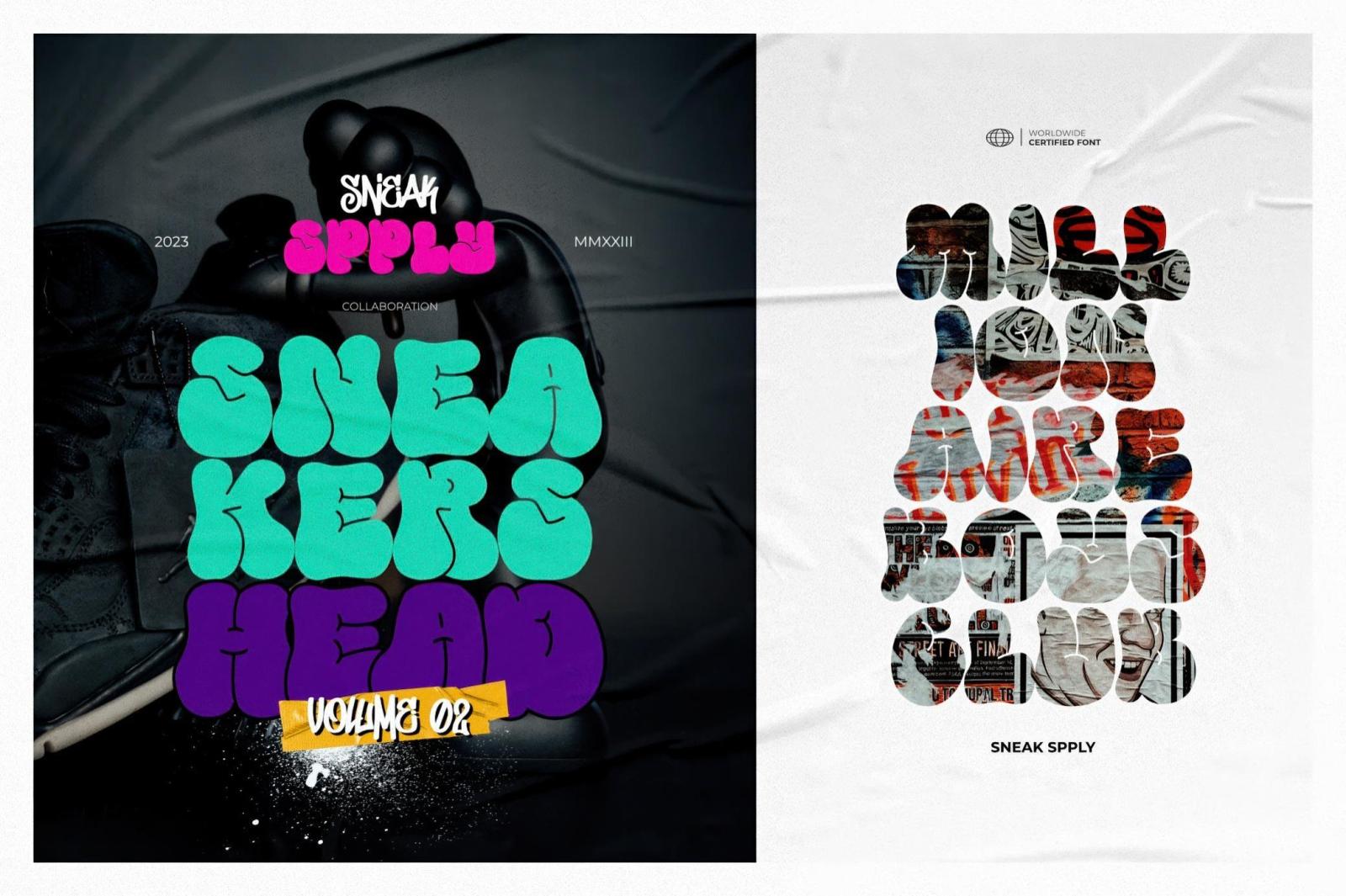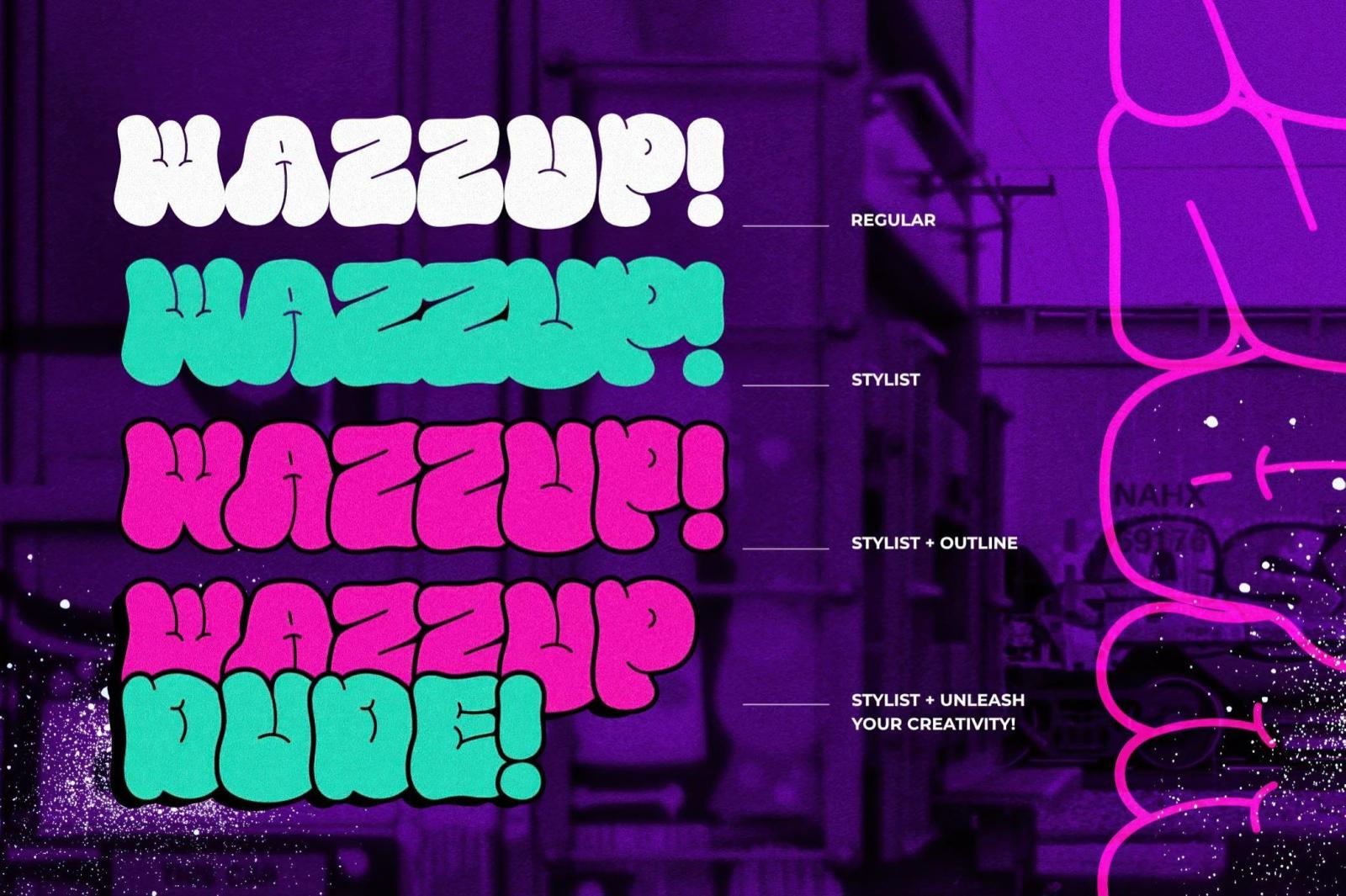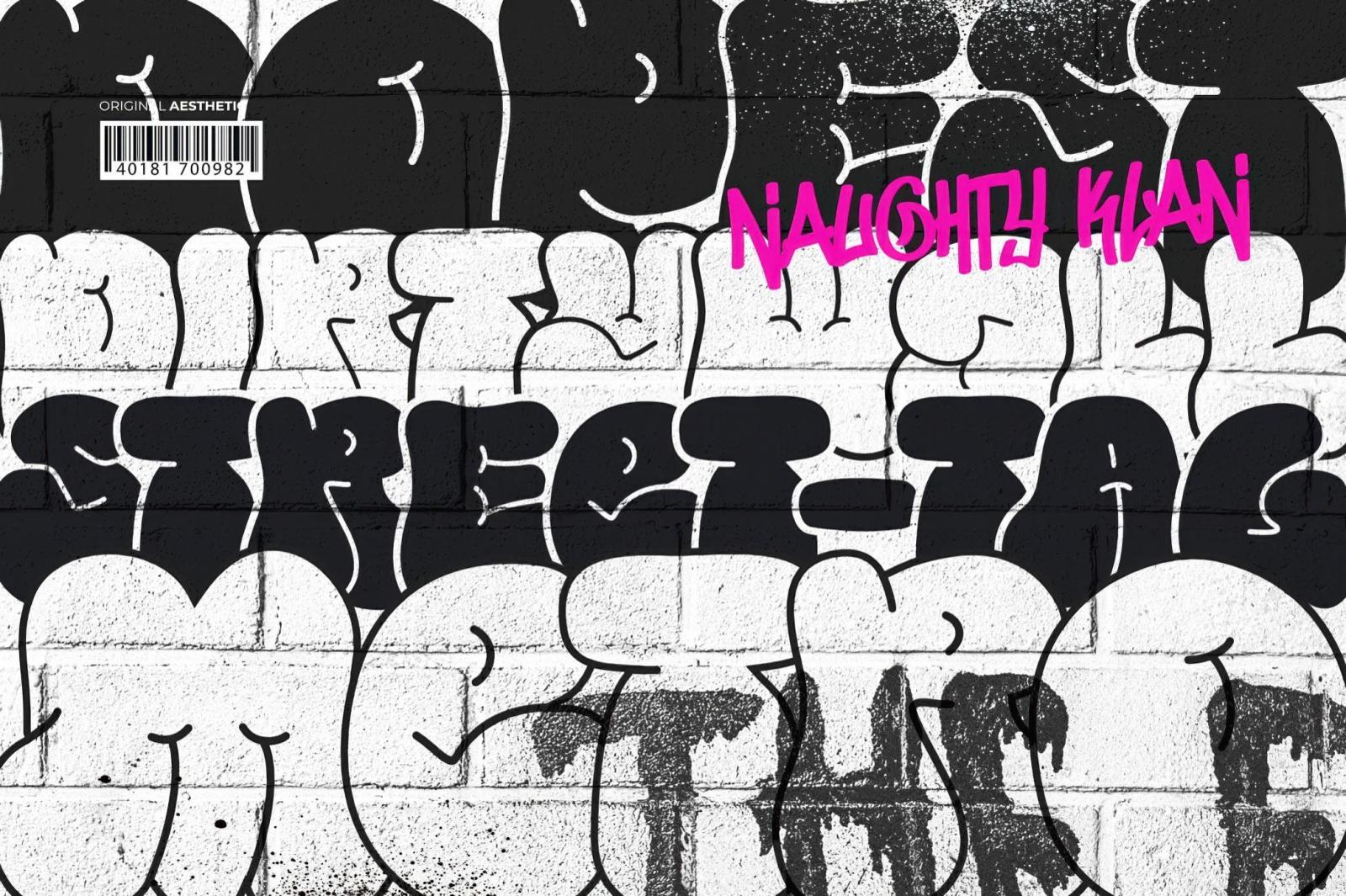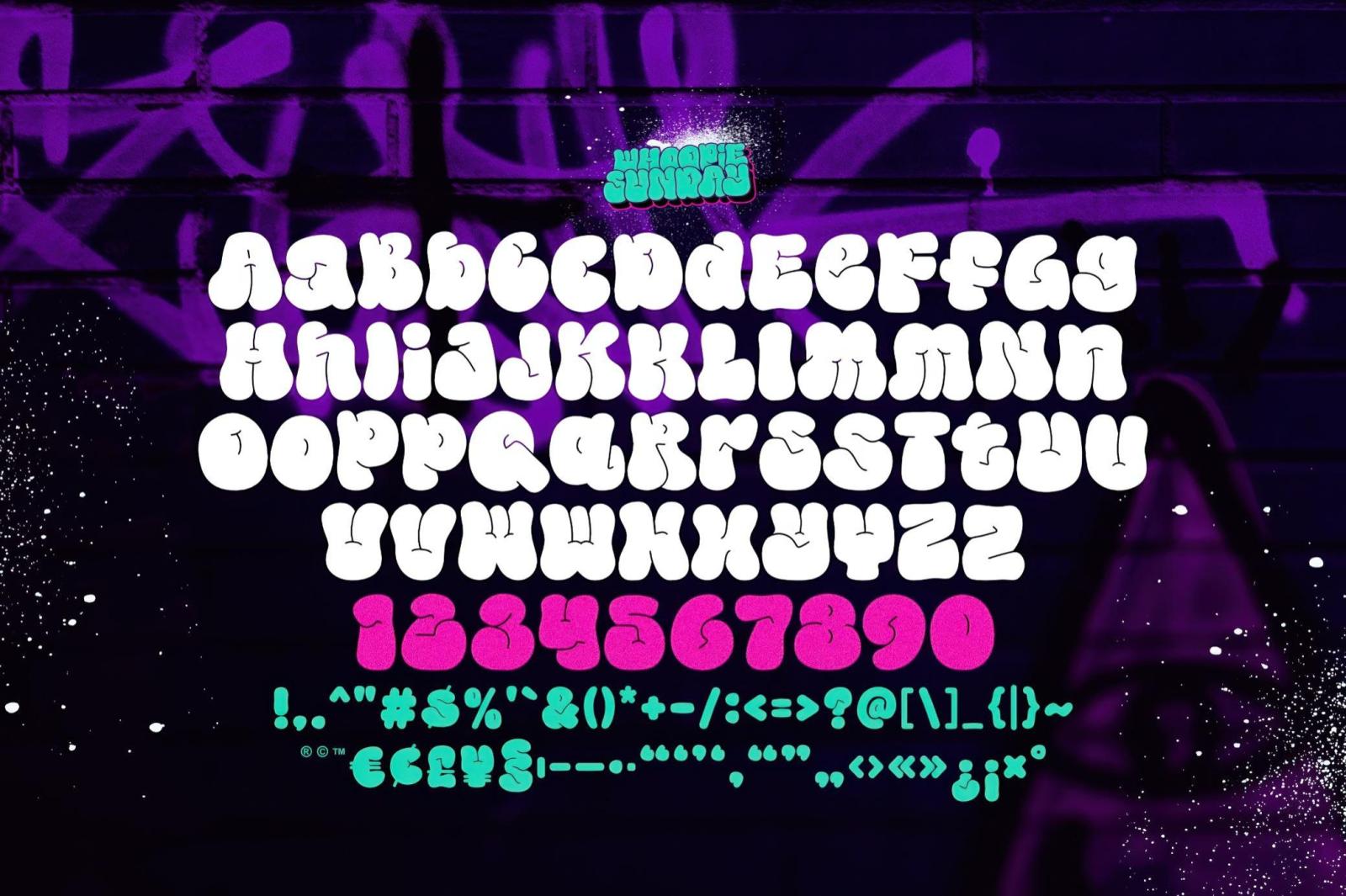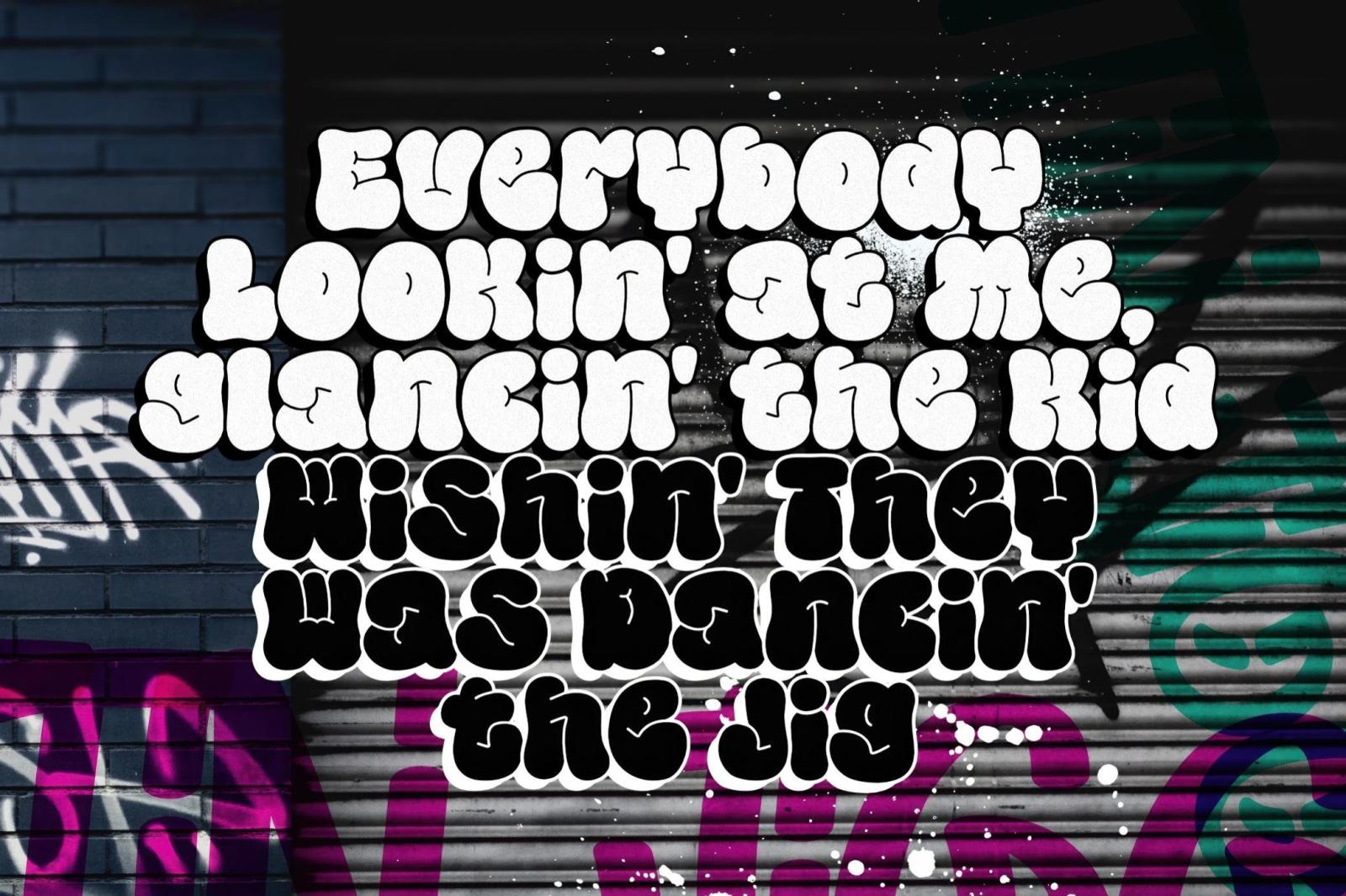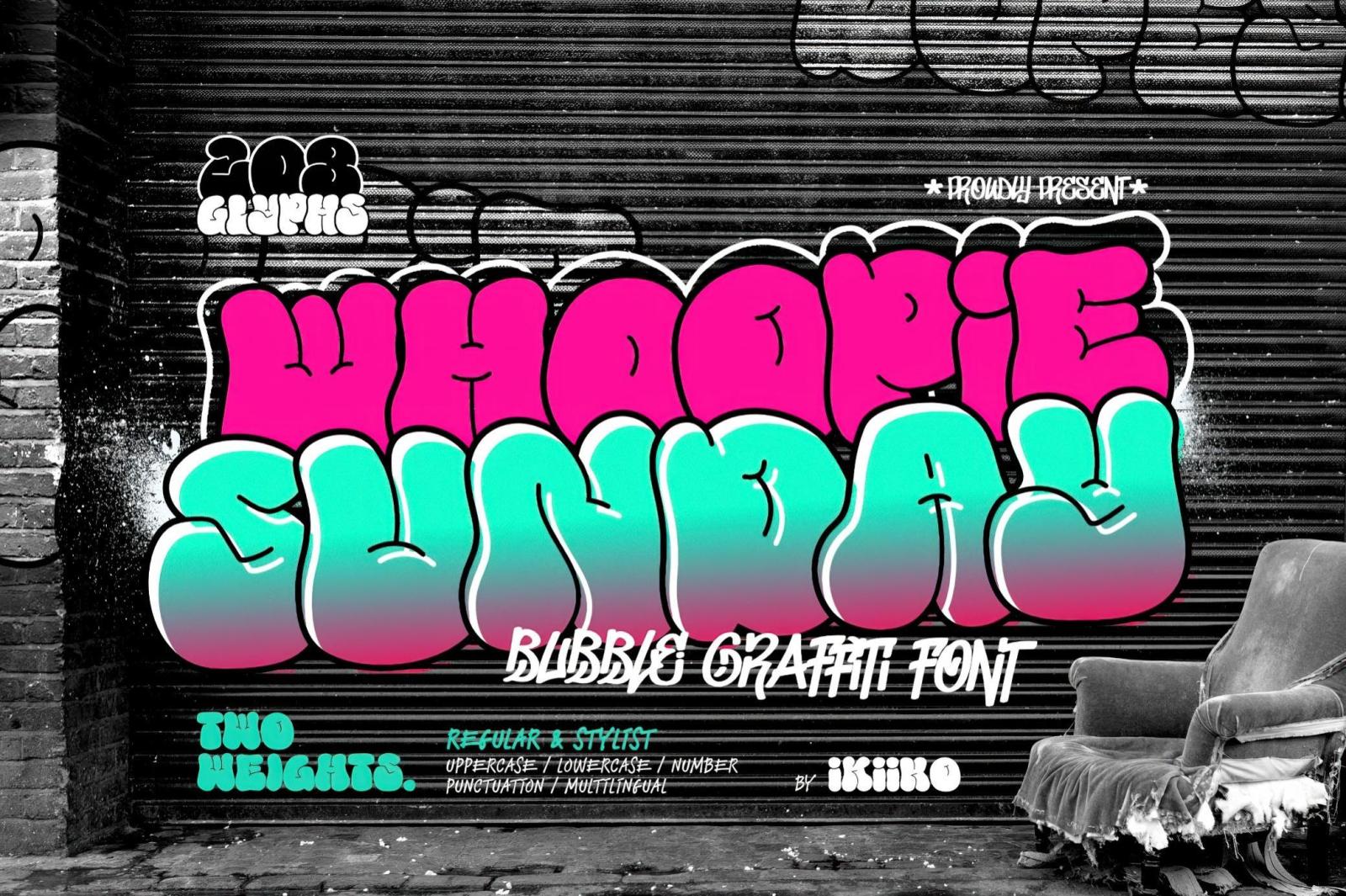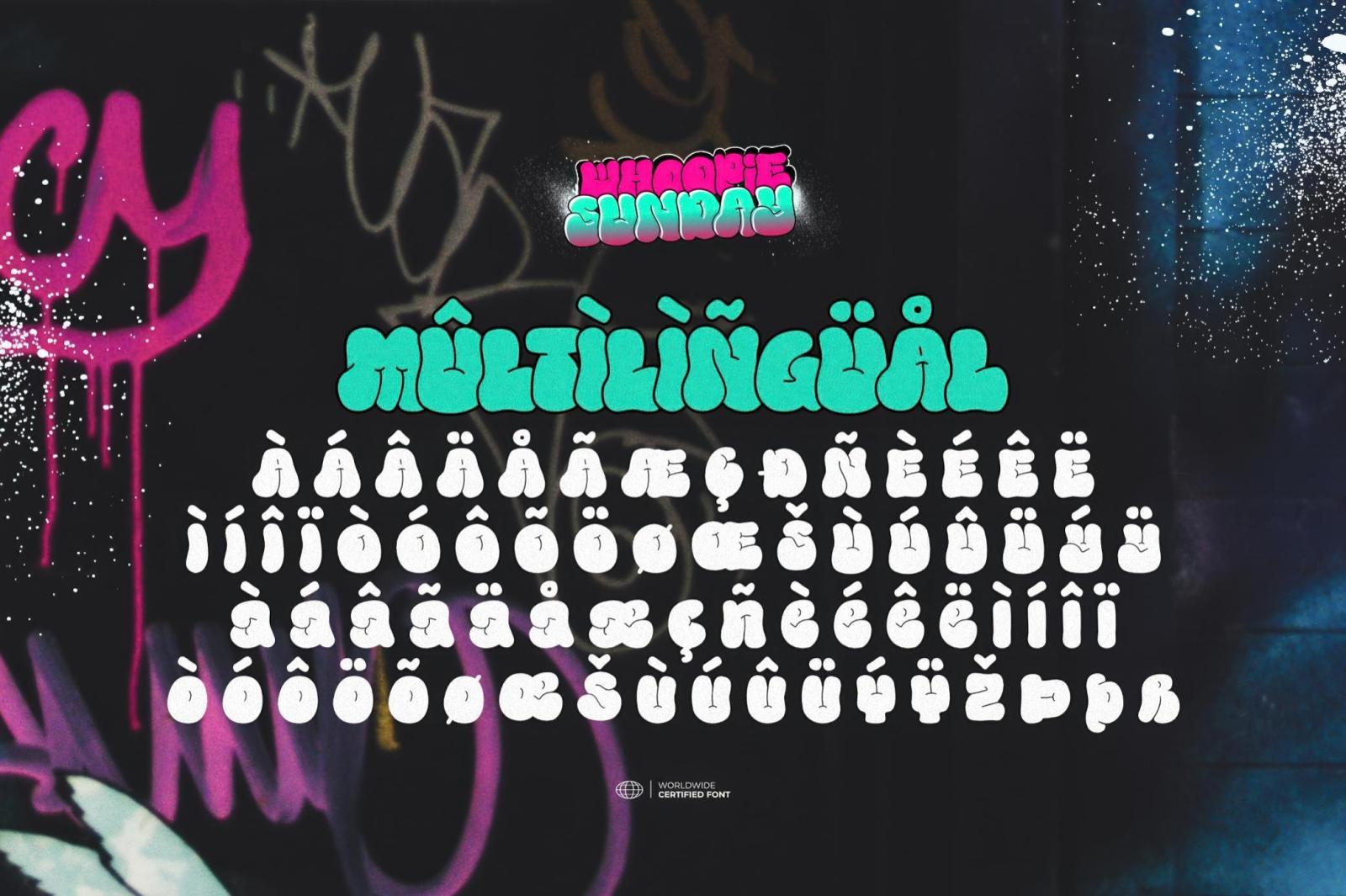
Whoopie Sunday — Bubble Graffiti Font
When you think of the 90s, it's impossible not to hear hip-hop beats, see subway trains tagged with graffiti, and feel the energy of street art booming alongside boomboxes. That's the vibe Whoopie Sunday delivers. It uses the dialect of the streets to narrate tales of graffiti-covered alleys, thriving subcultures, and the unwavering spirit of individualistic creativity. Whoopie Sunday has two weights, Regular and Stylist (which allows you to play with colors and outlines). With a complete character set, it's ready for posters, album covers, merch designs, streetwear branding, or social media graphics.